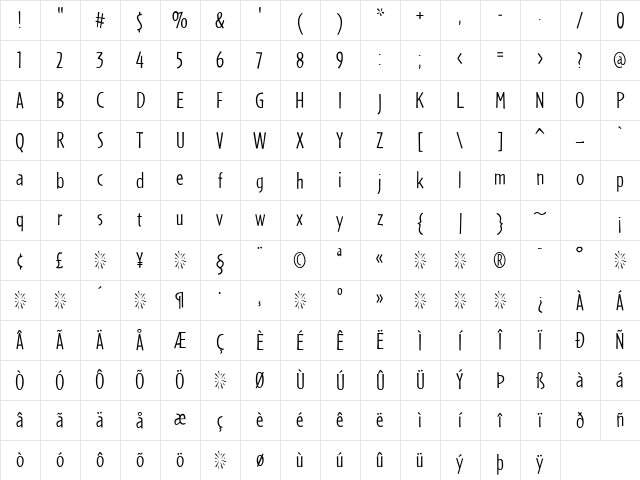
Cafeteria is a composed and adaptable typeface that performs quietly and consistently across a wide range of design contexts.
Who designed the Cafeteria Regular font?
This font was published by Copr. Tobias Frere-Jones. Designed by Tobias Frere-Jones. Produced by The Font Bureau, Inc. Check the technical specs section for copyright and designer details.